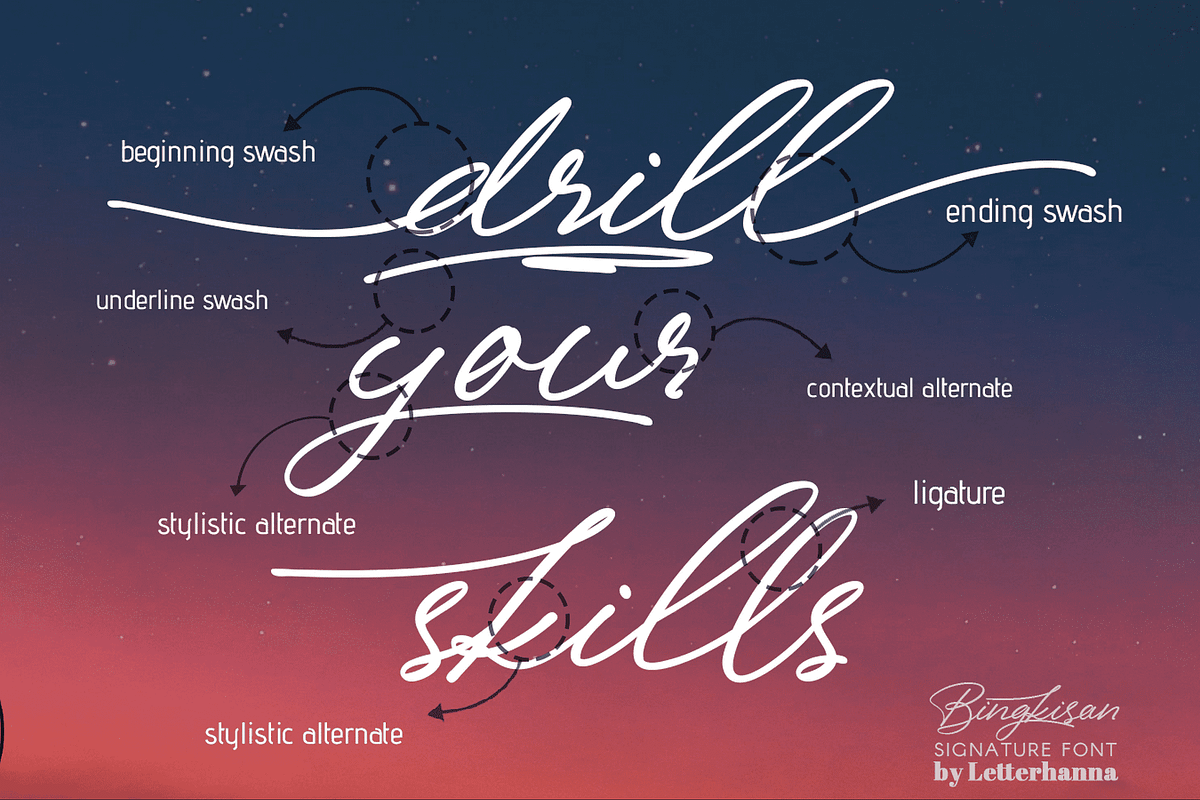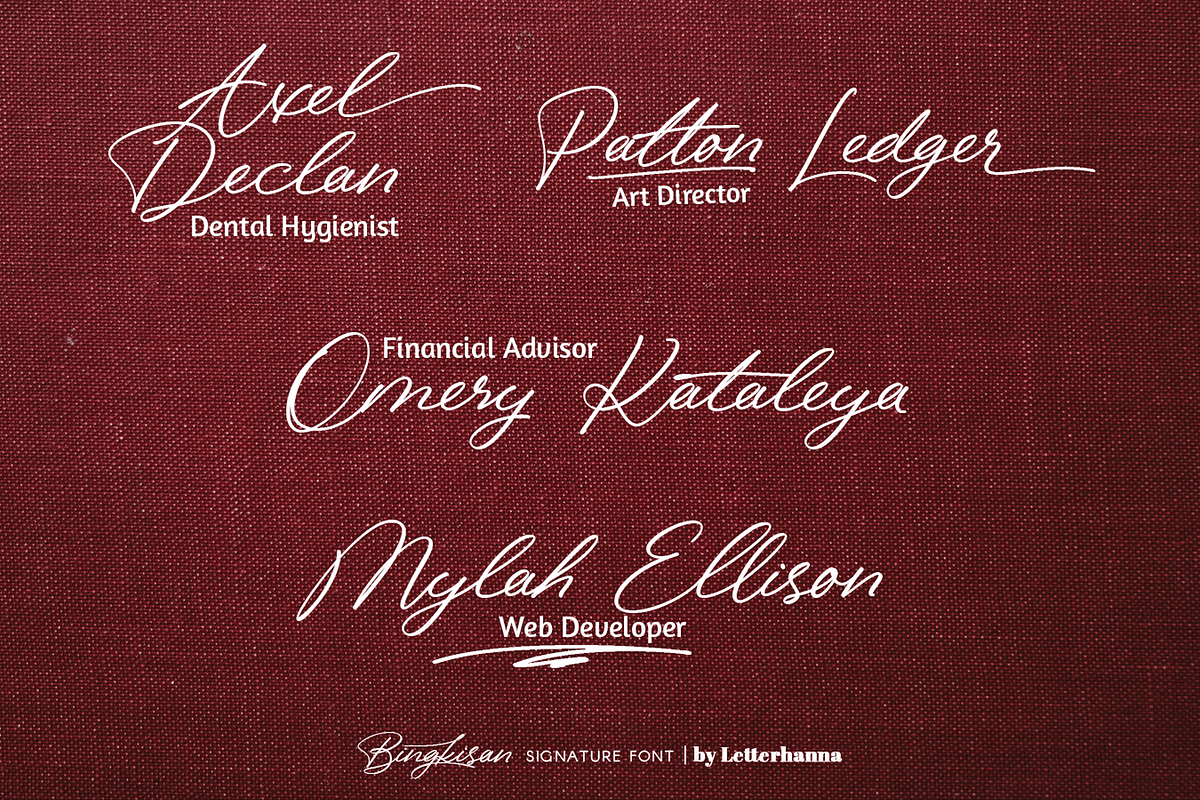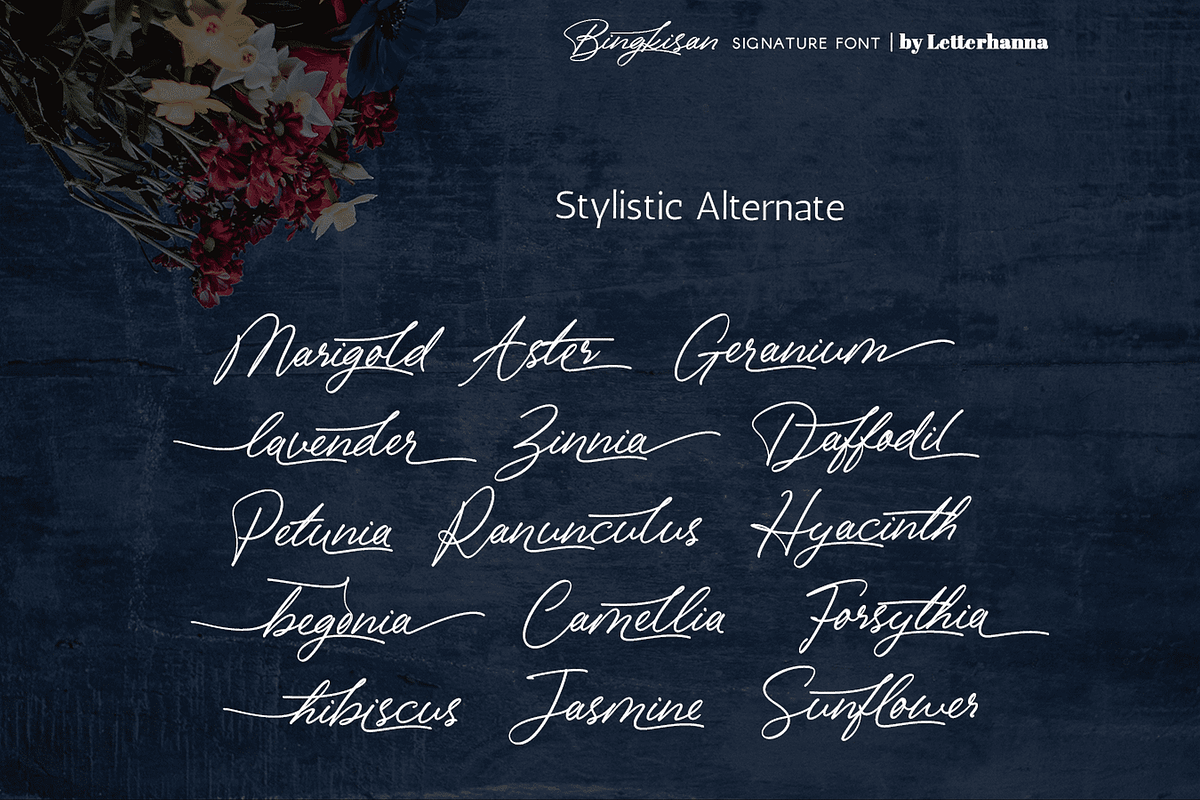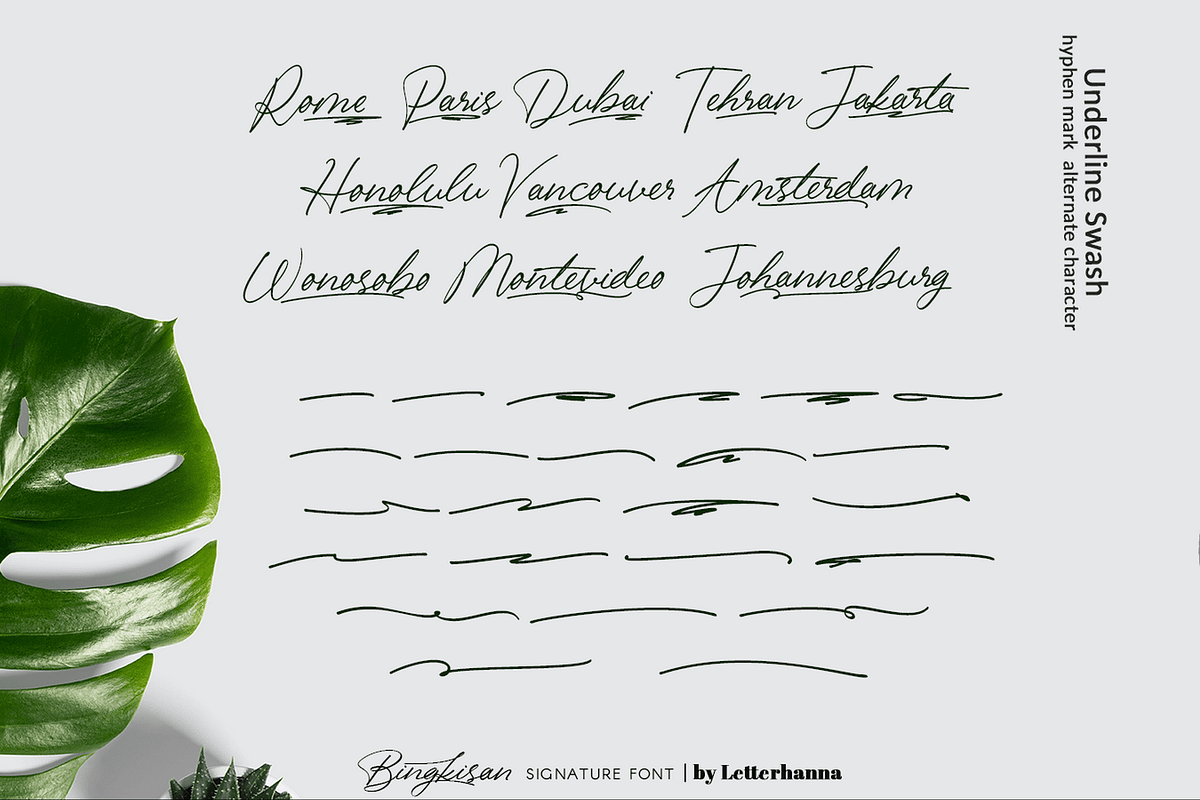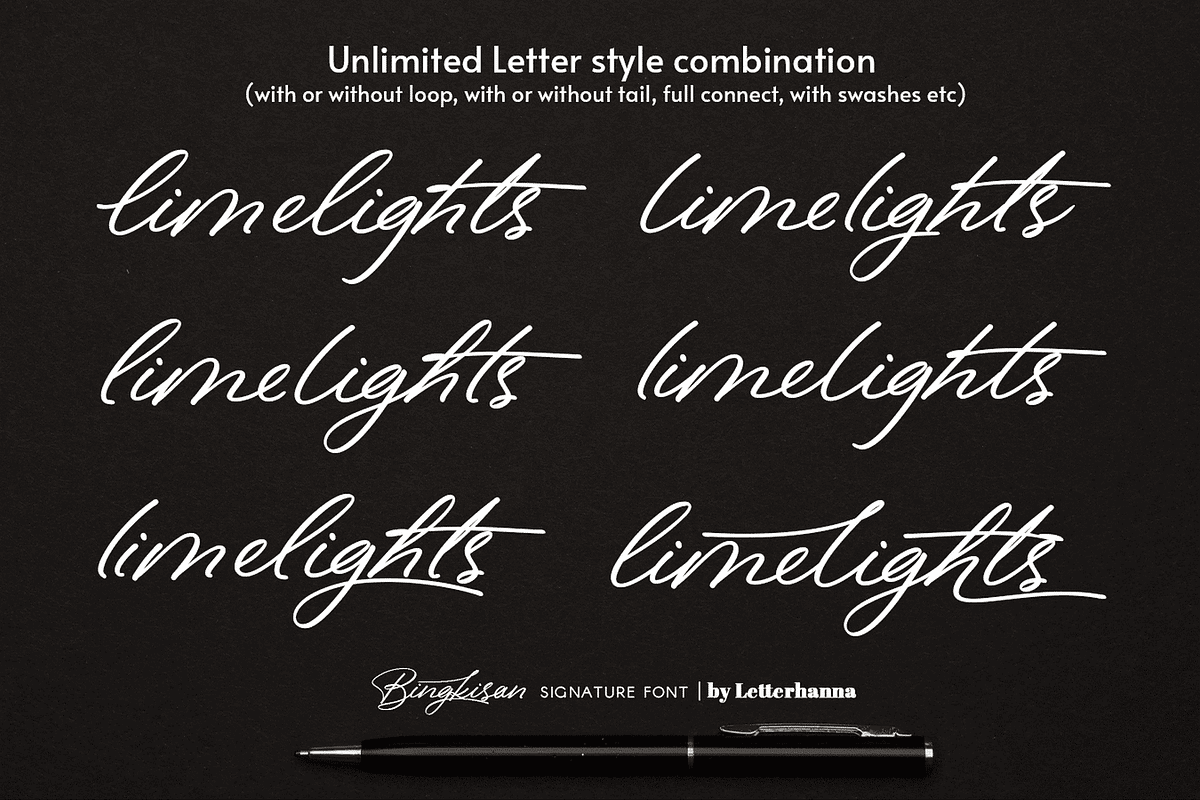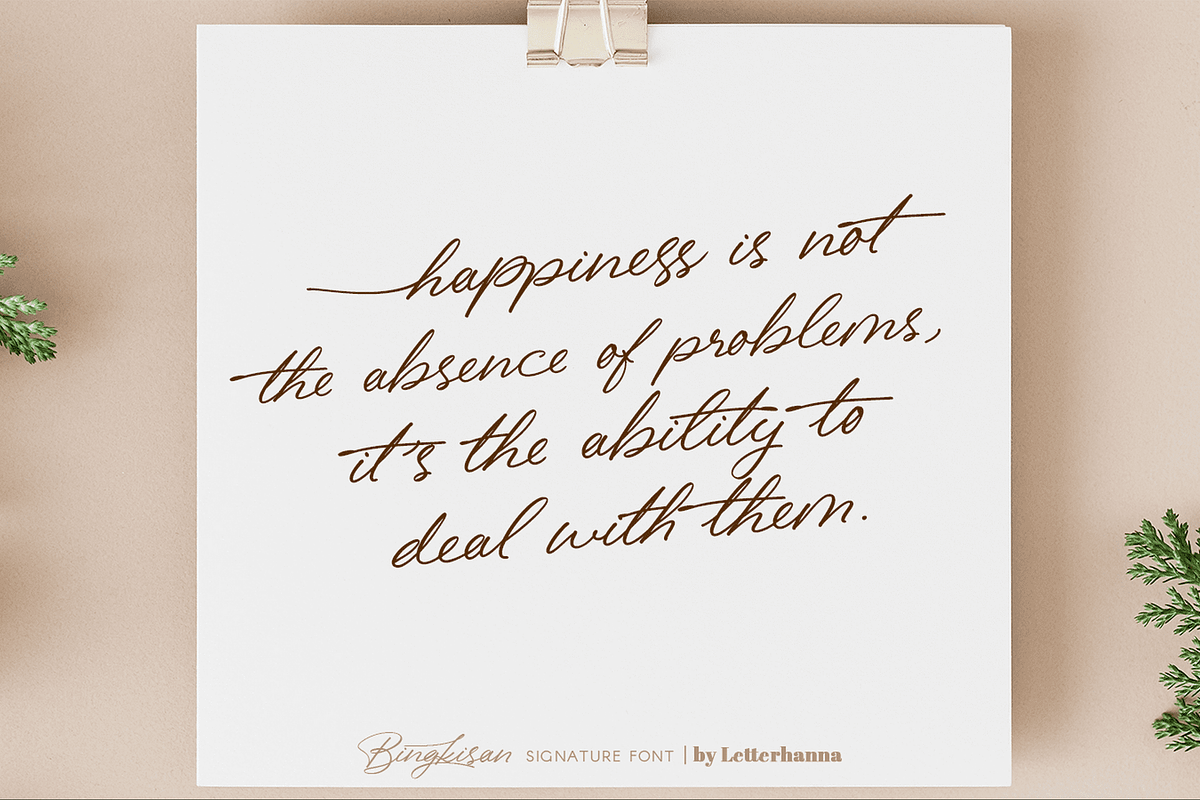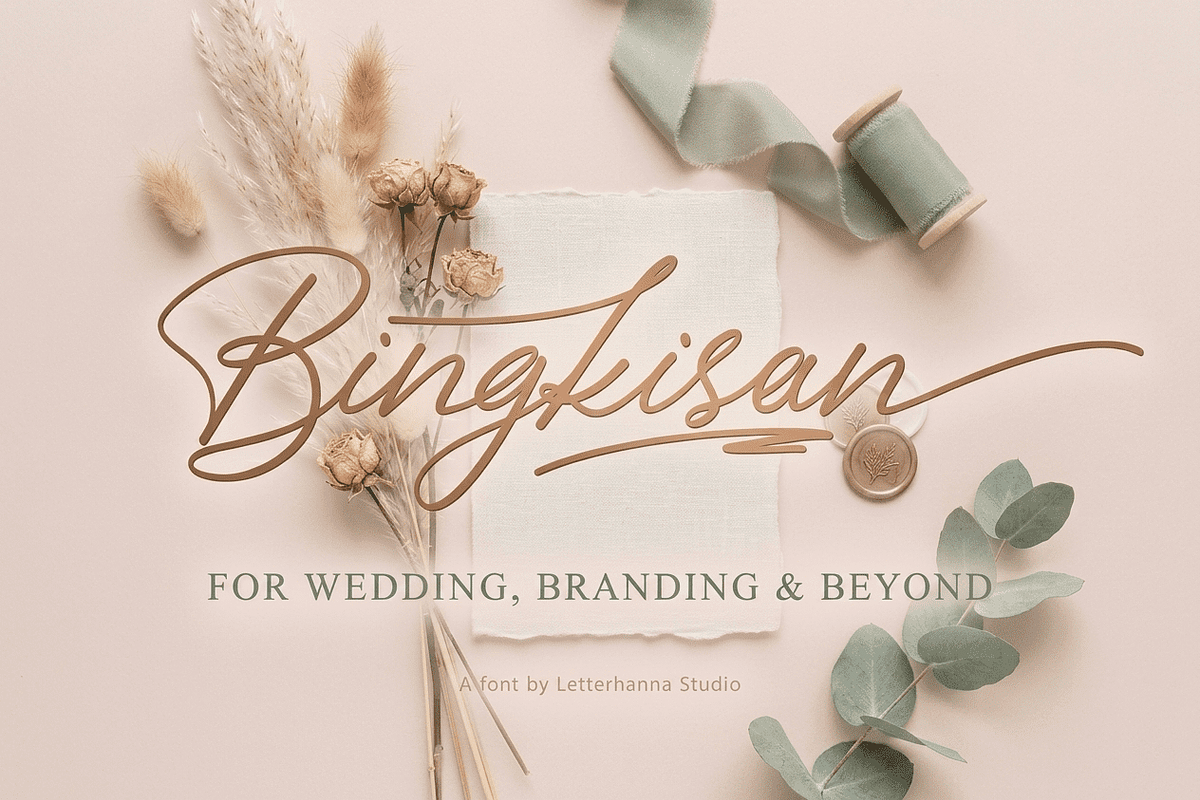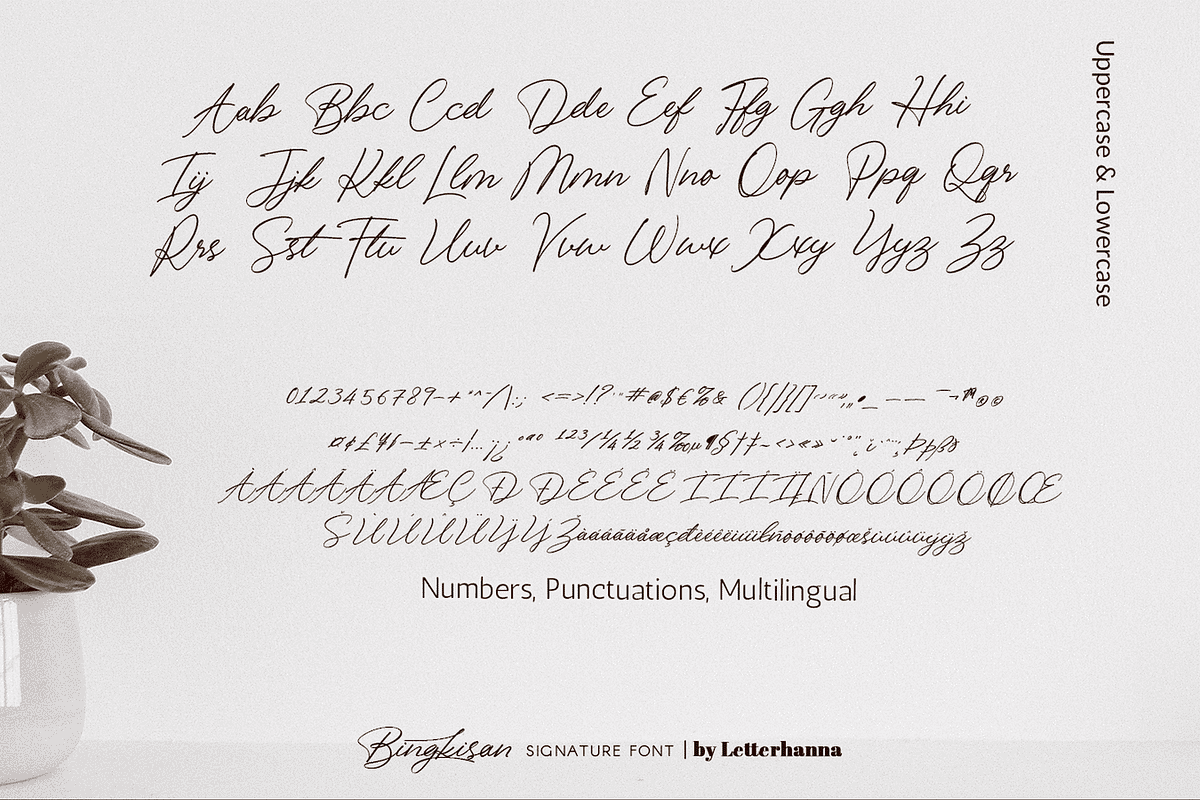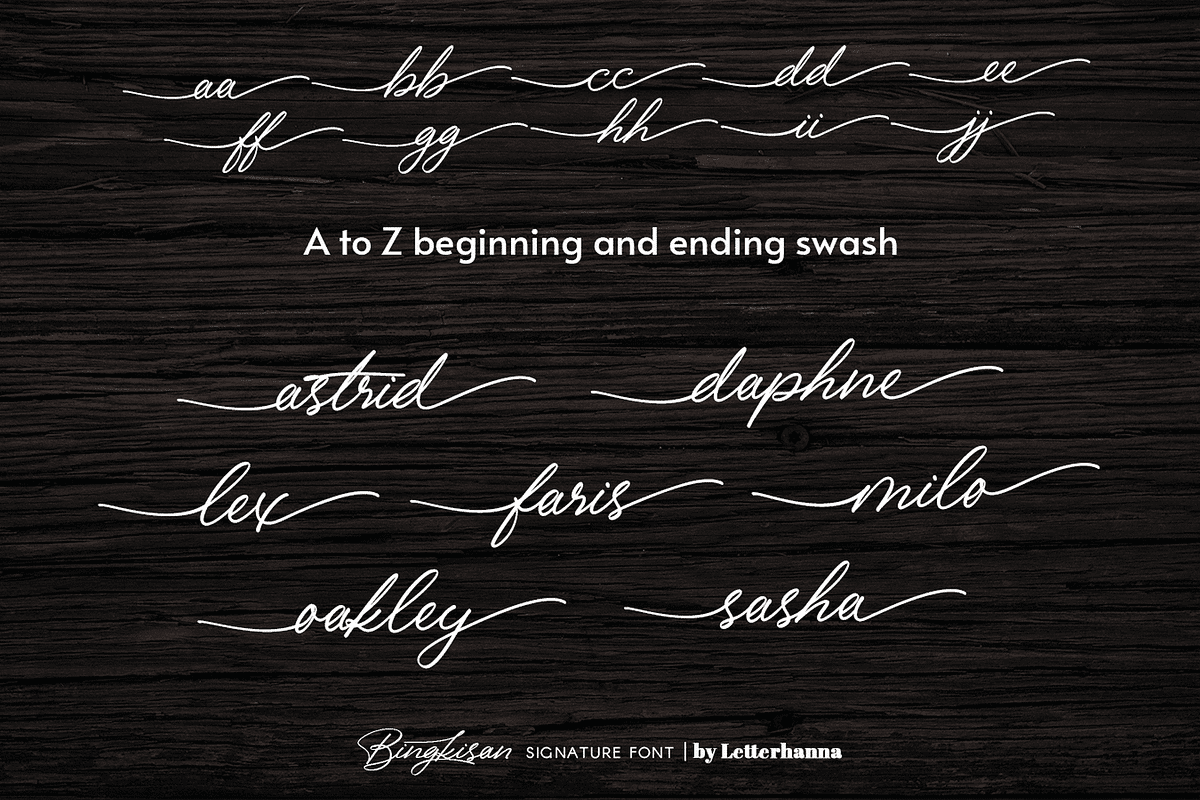
Bingkisan Font
Bingkisan is a font with Signature style, but with the vibe of real hand lettering, with a lot of swashes, ligatures and stylistic alternate, Bingkisan Font is perfect for many different project such as logos & branding, invitation, wedding designs, social media posts, advertisements, product packaging, product designs, label, photography, watermark, special events or anything.
Bingkisan Signature Script Font was created to look as close to a natural handwritten script as possible by including natural-looking opentype ligatures, and Two full set of lowercase alternates. There are also 24 underline swooshes included.
Bingkisan Signature Script Font also comes with more OpenType features like Stylistic Alternates, Initial Forms, beginning-of-word swashes and end-of-word swashes.
- Beginning and ending swashes
- Underline swashes
- Stylistic alternate.